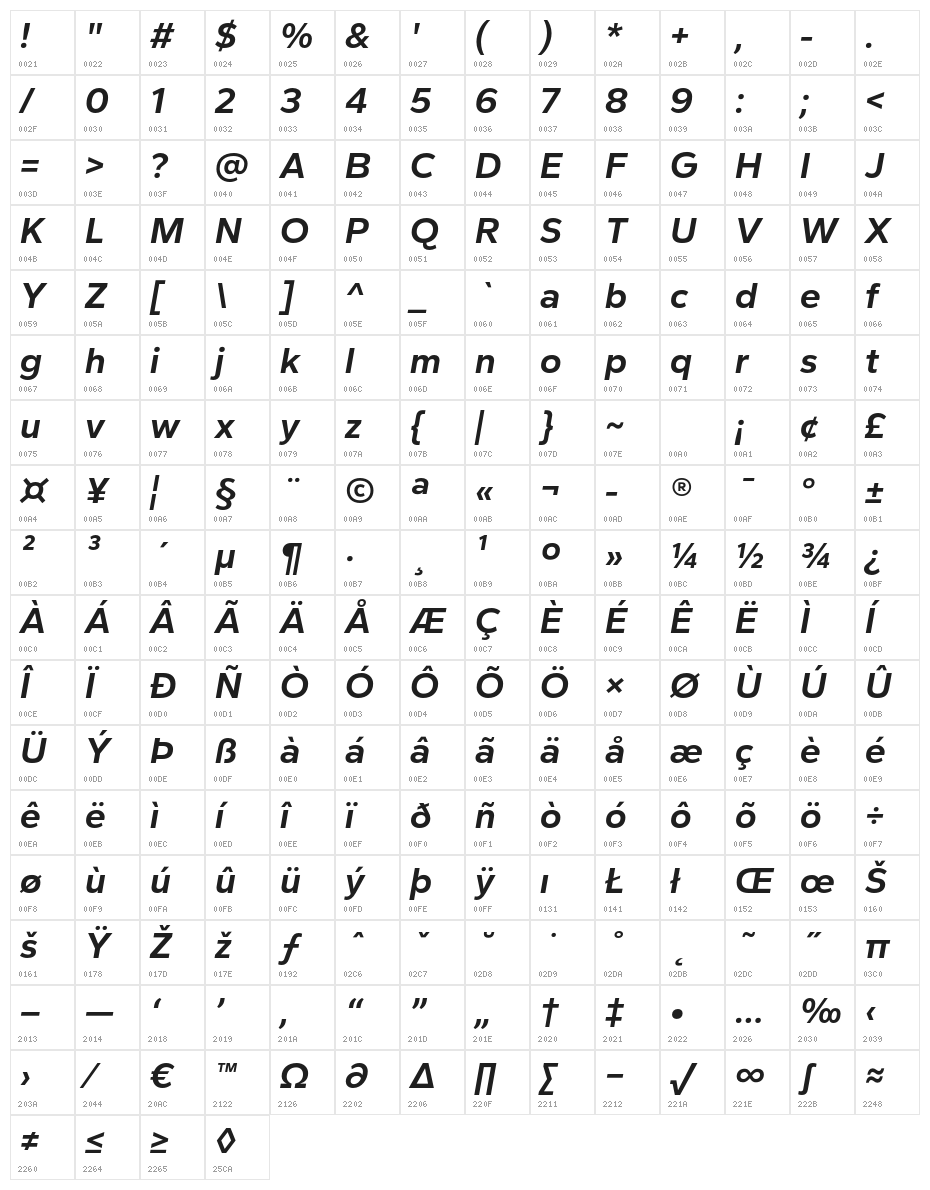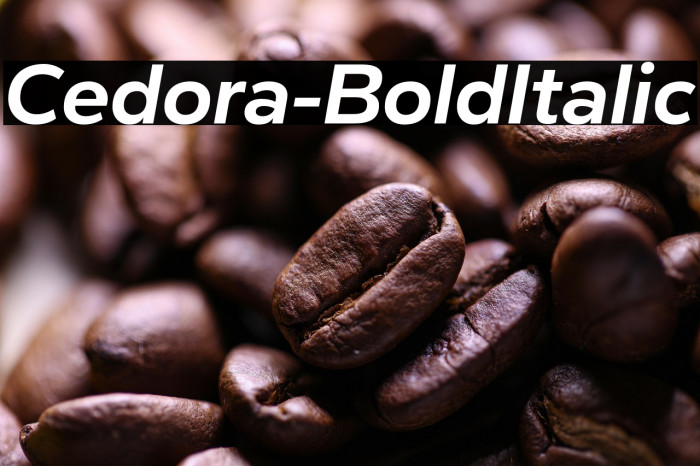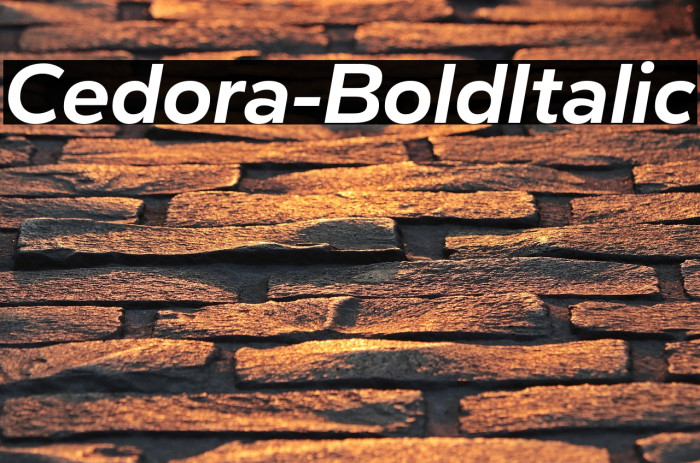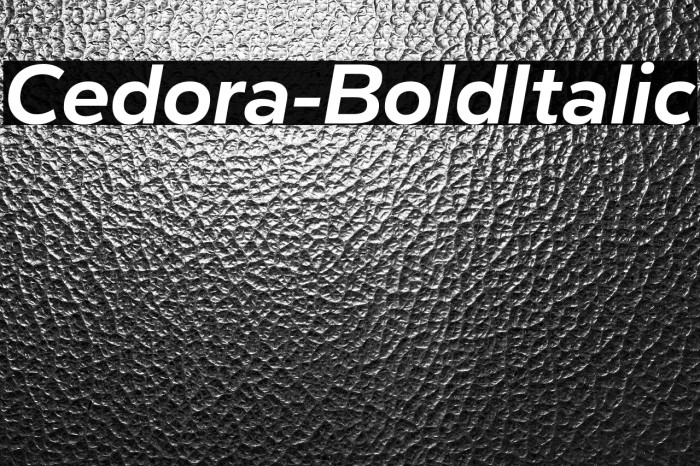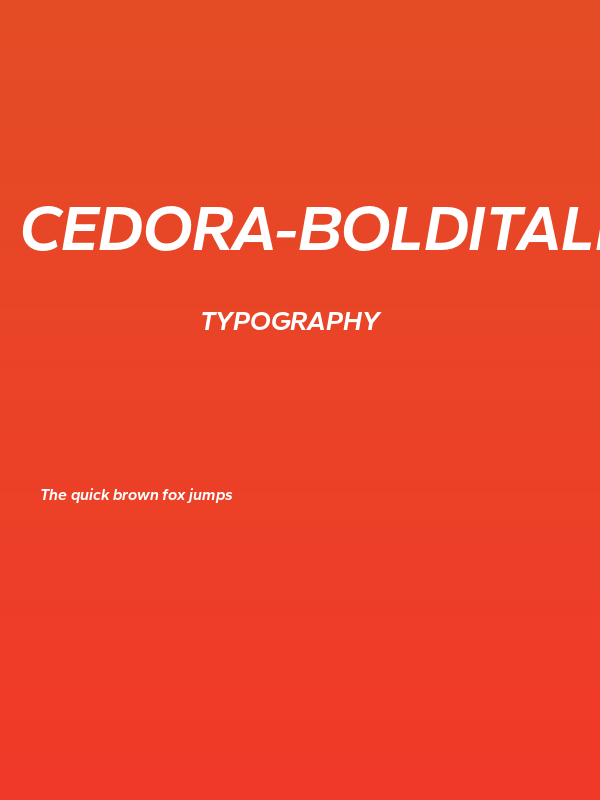
Cedora-BoldItalic Font
Cedora-BoldItalic Description
This font exhibits a modern and sleek design with a bold and italicized style. The characters are well-defined with a slight slant, giving it a dynamic and forward-moving appearance. The uppercase and lowercase letters maintain a consistent weight, contributing to its bold presence. The numerals are clear and easily distinguishable, while the special characters are designed to complement the overall aesthetic. The font's clean lines and smooth curves make it suitable for a variety of applications, providing both readability and a contemporary look.
| Use Case | Headlines, Logos, Advertising |
| Proposed Projects | Ideal for branding, advertising, headlines, and digital media projects that require a bold and modern touch. |